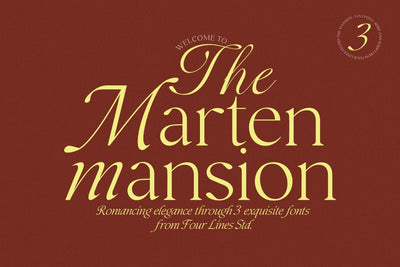
The Marten Mansion – Serif Font
Introducing The Marten Mansion, a font family that seamlessly integrates serif and script styles. Available in three variations—Regular, Italic, and Script—this font family combines the elegance of serif typography with the refined beauty of calligraphy.
The Regular and Italic styles offer clean and timeless readability. The Script variant enhances projects with its graceful, calligraphic charm.